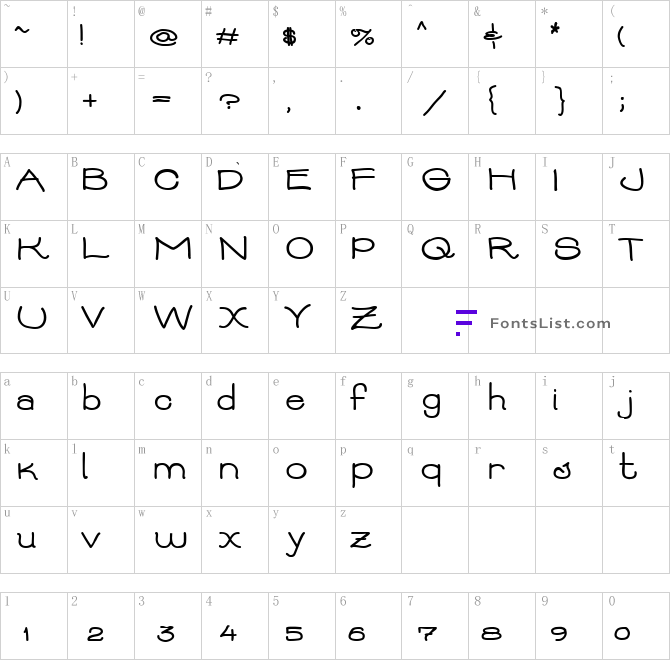
- Font Name:AbbieBess
AbbieBess.ttf is a very beautiful artistic font, AbbieBess.ttf is widely used in the design and printing of various books and pictures,AbbieBess.ttf has a strong visual impact,AbbieBess.ttf is a commonly used font in newspapers, magazines and books, and is used in posters, e-commerce Poster design, store design, logo design, font design and other fields.AbbieBess.